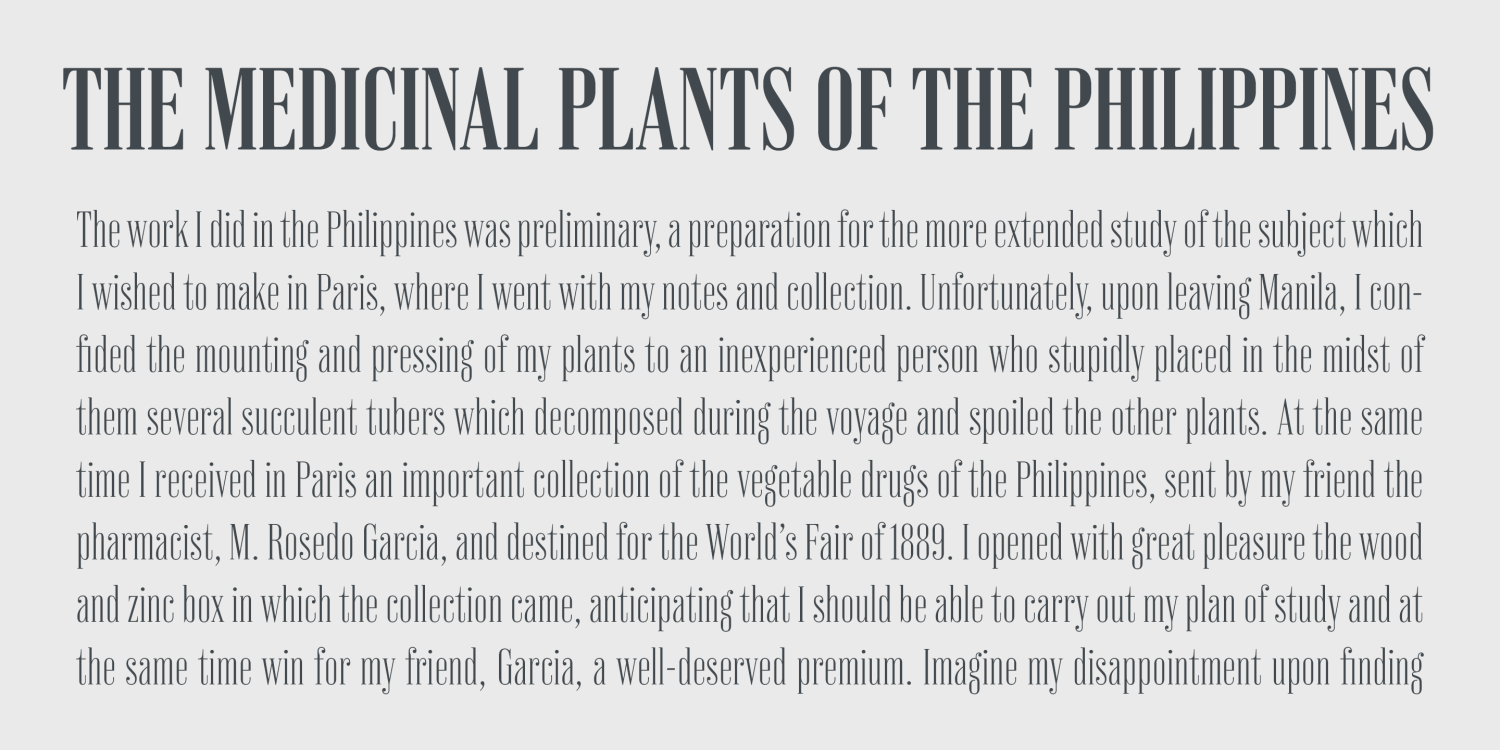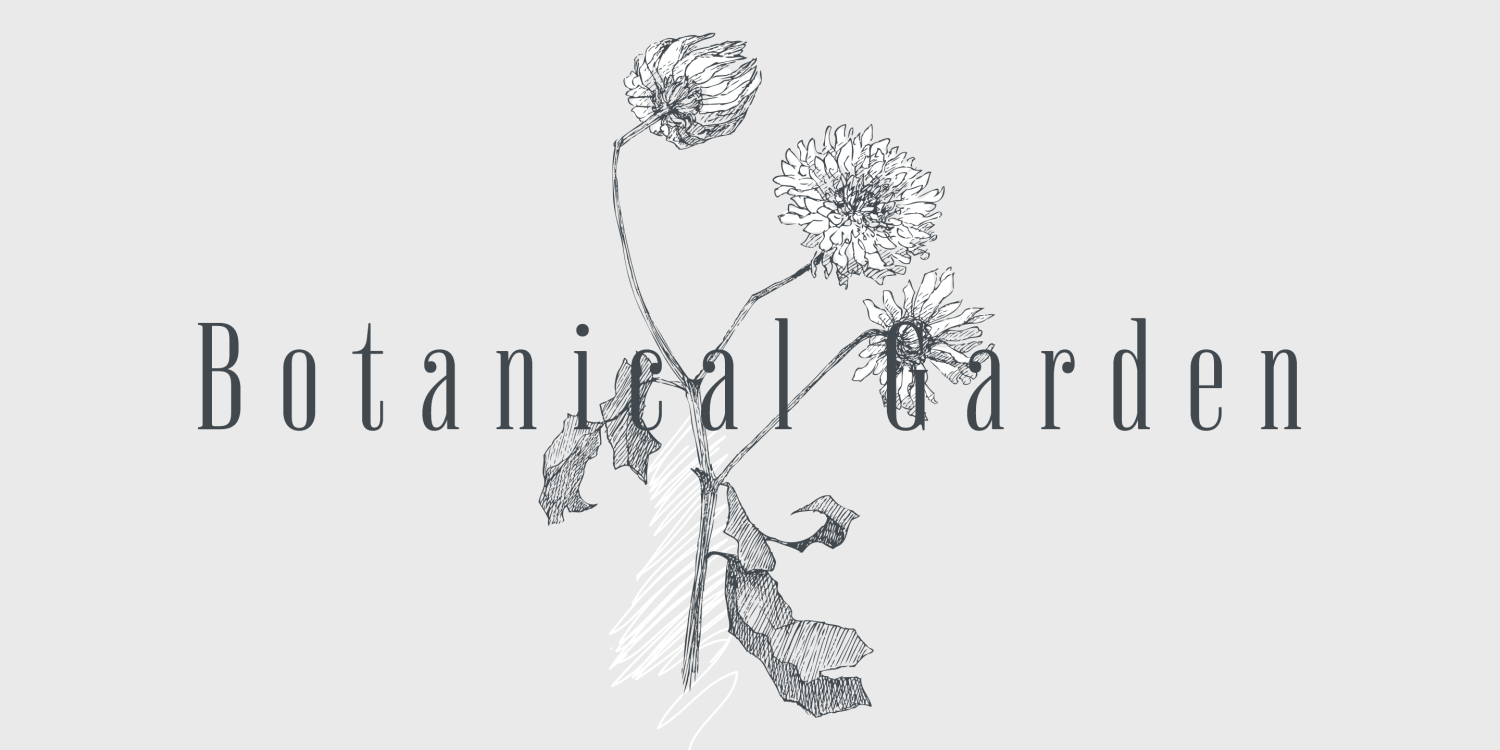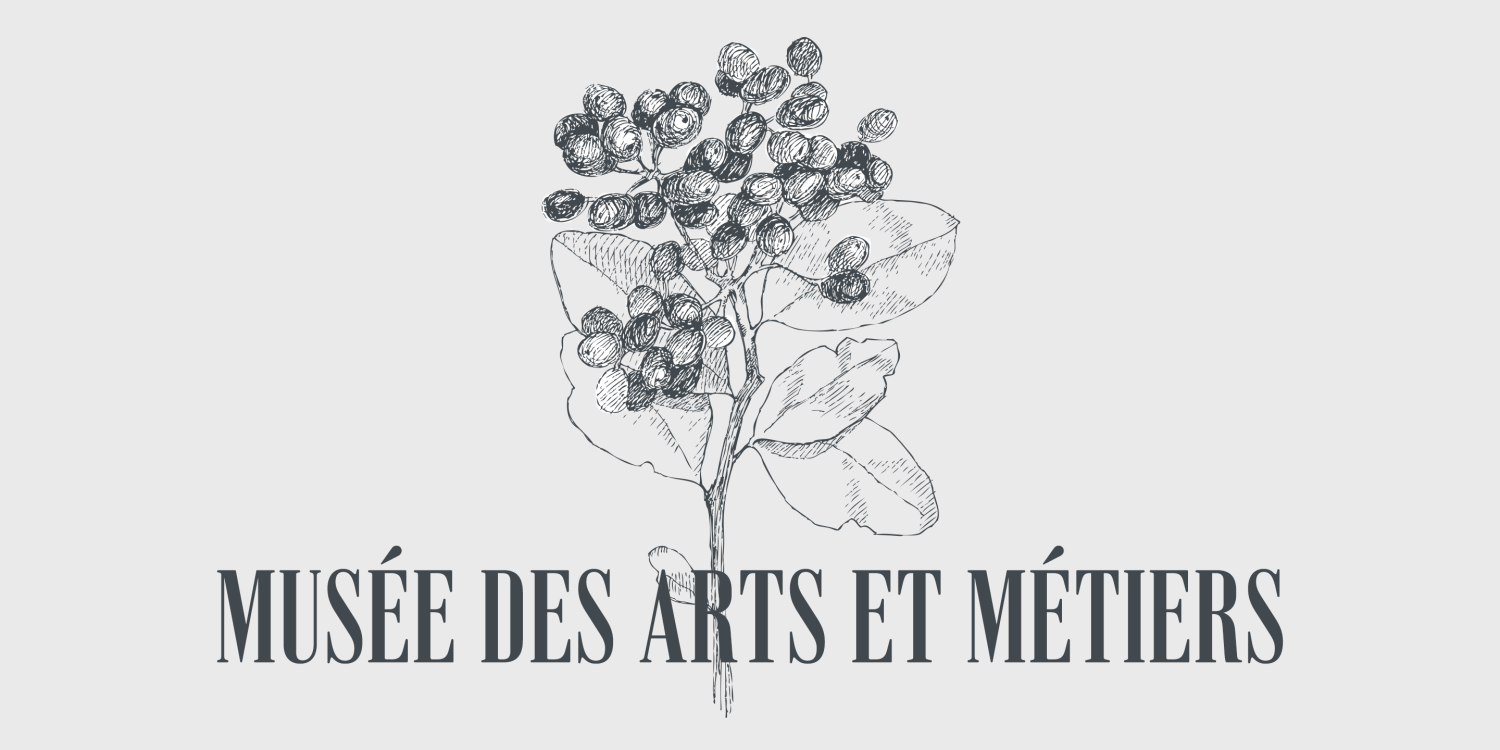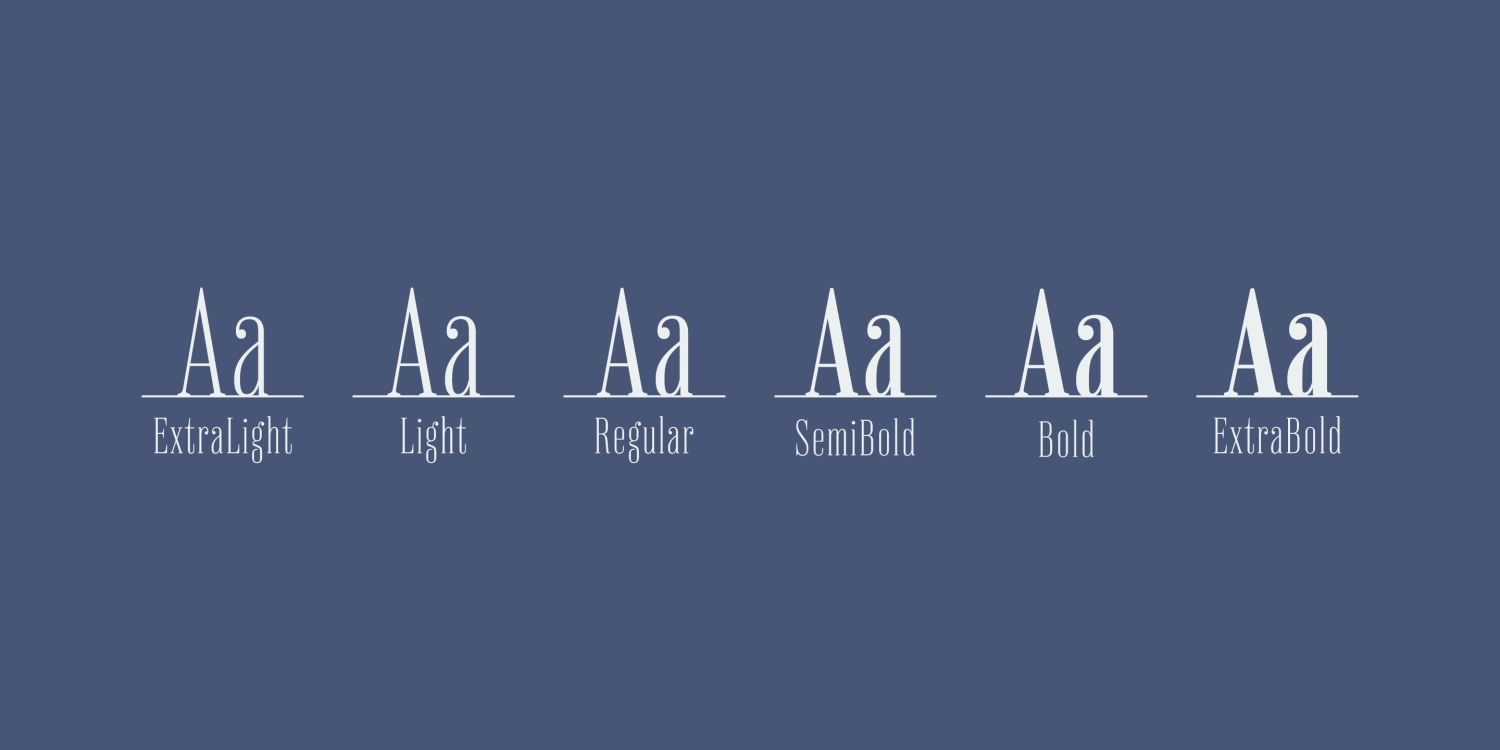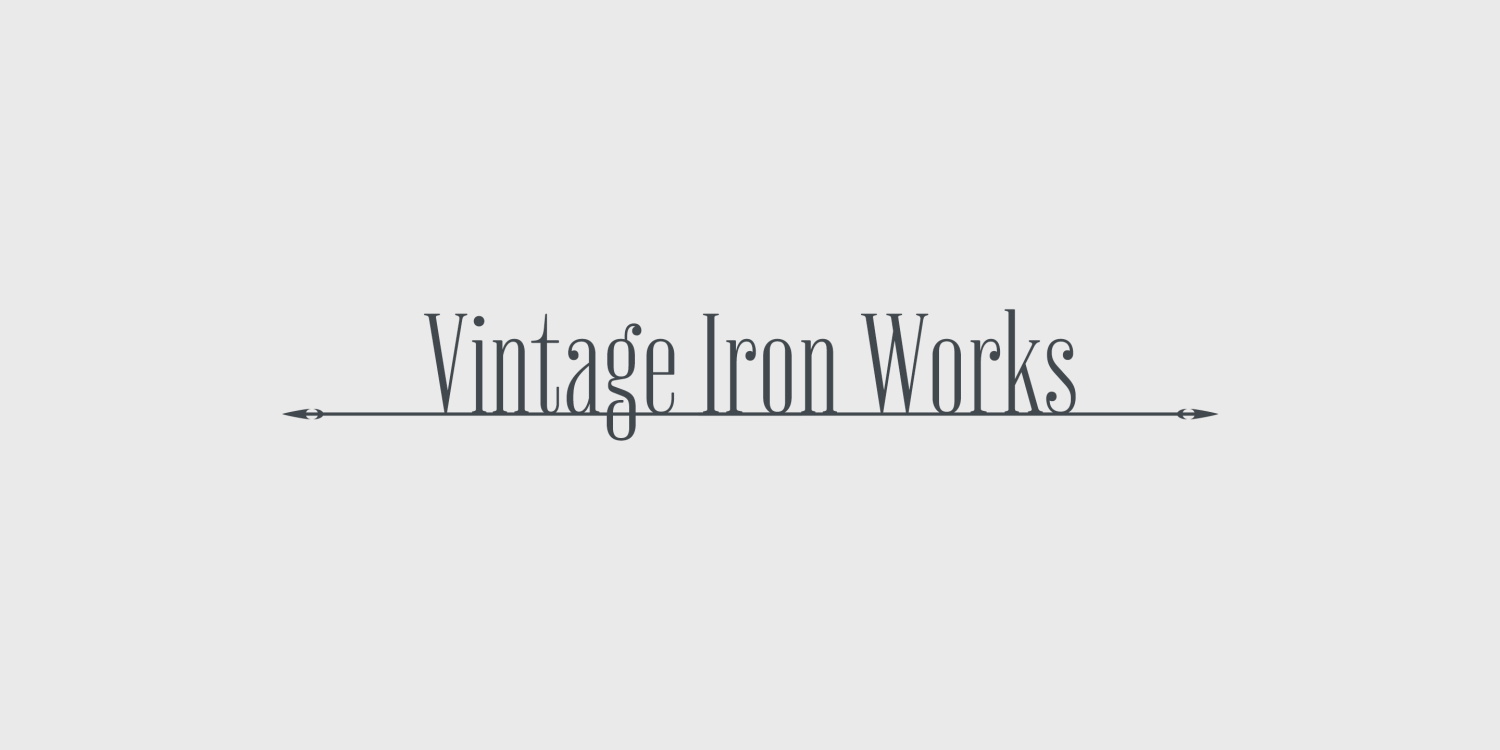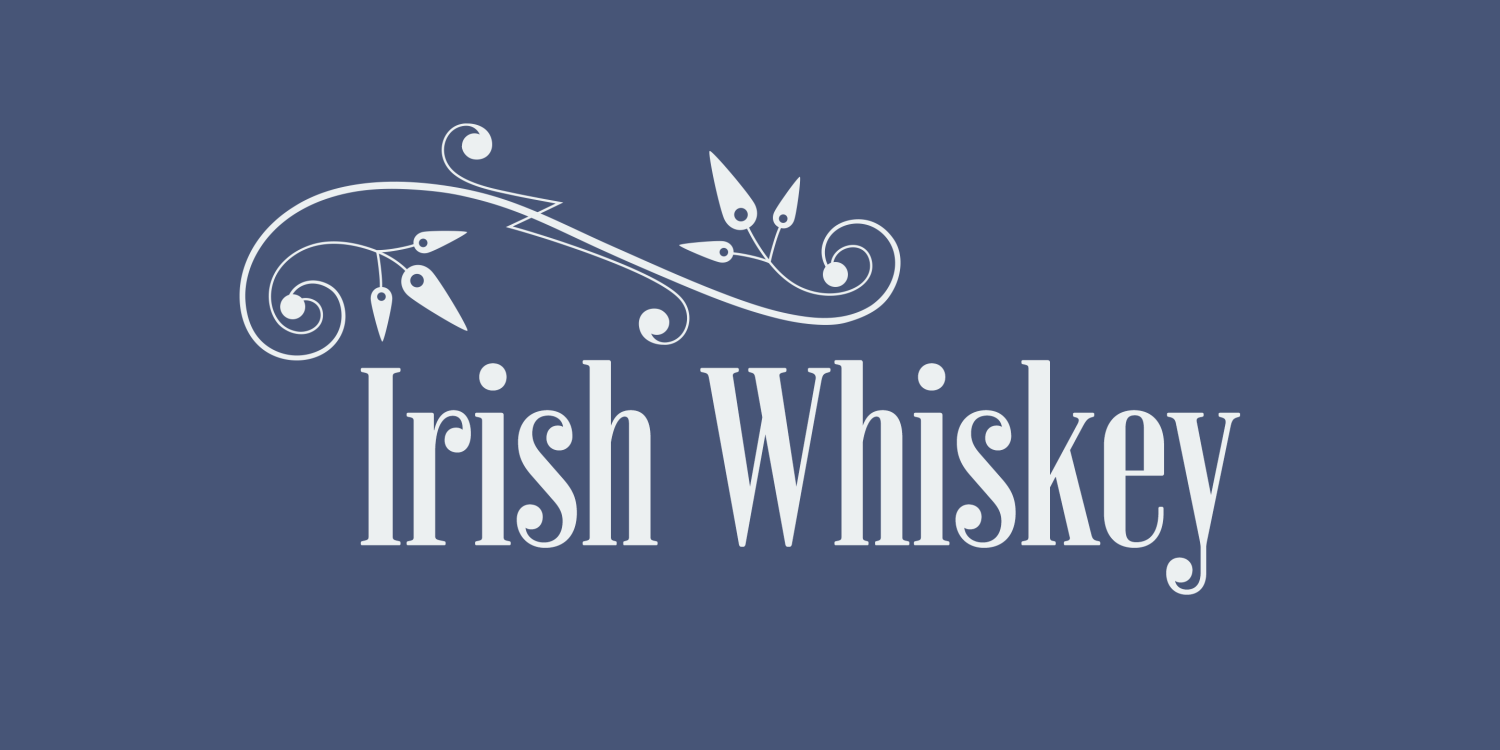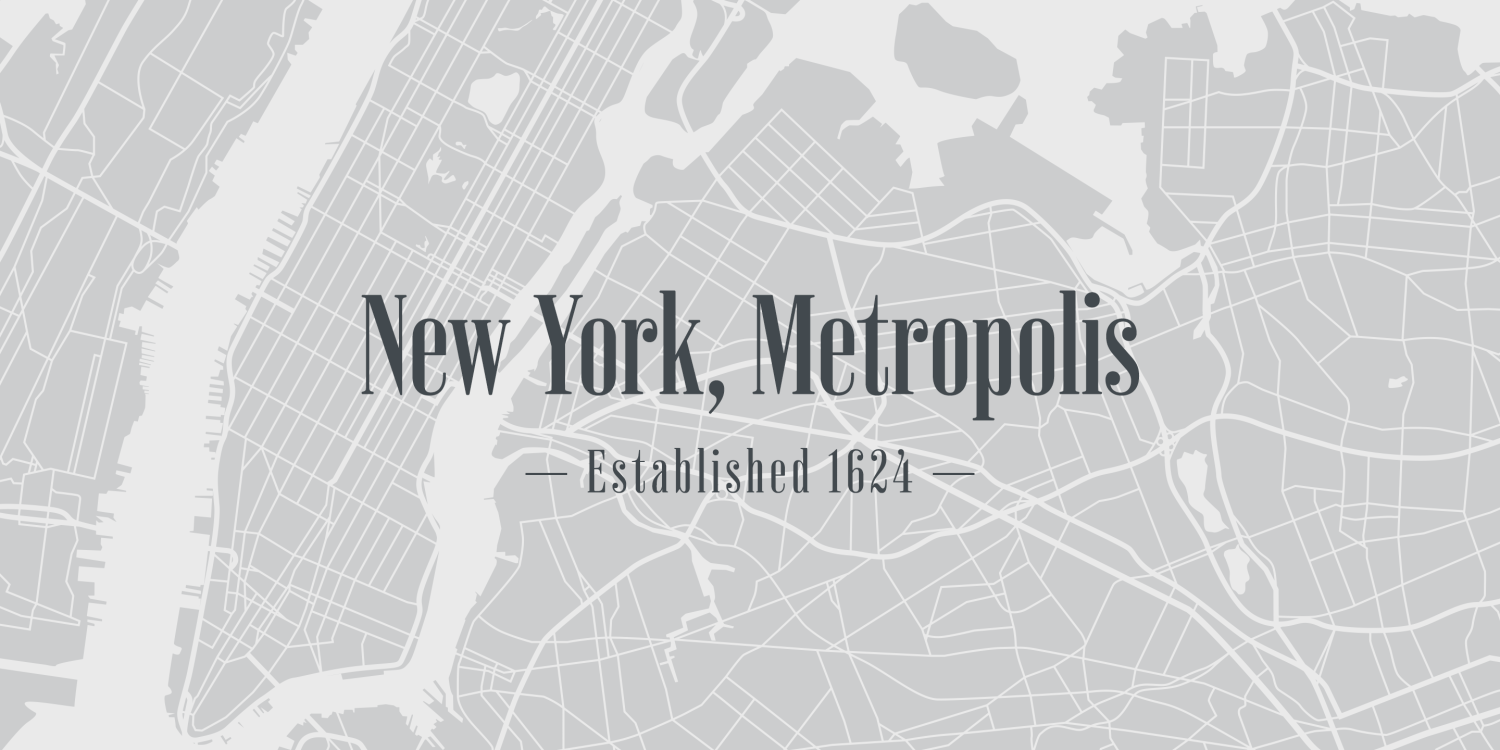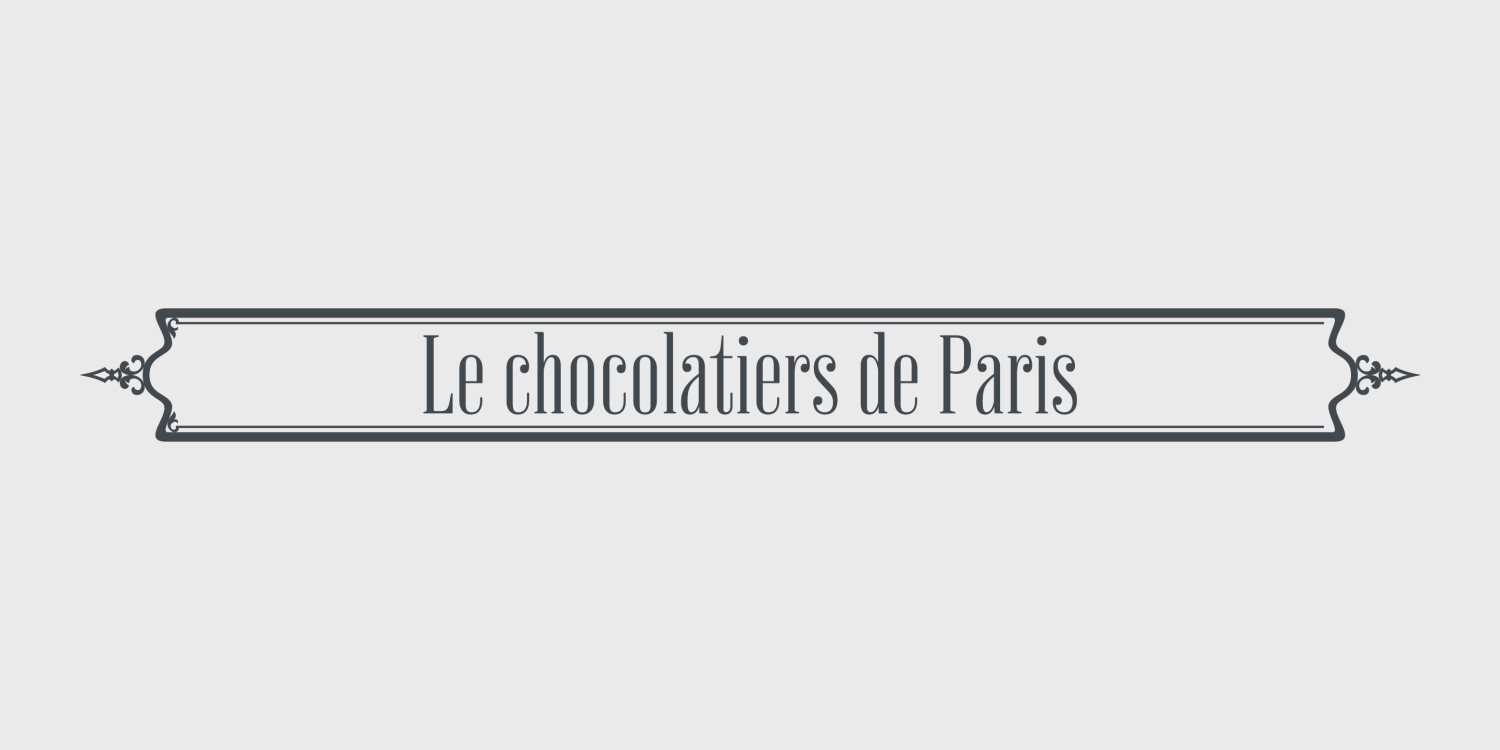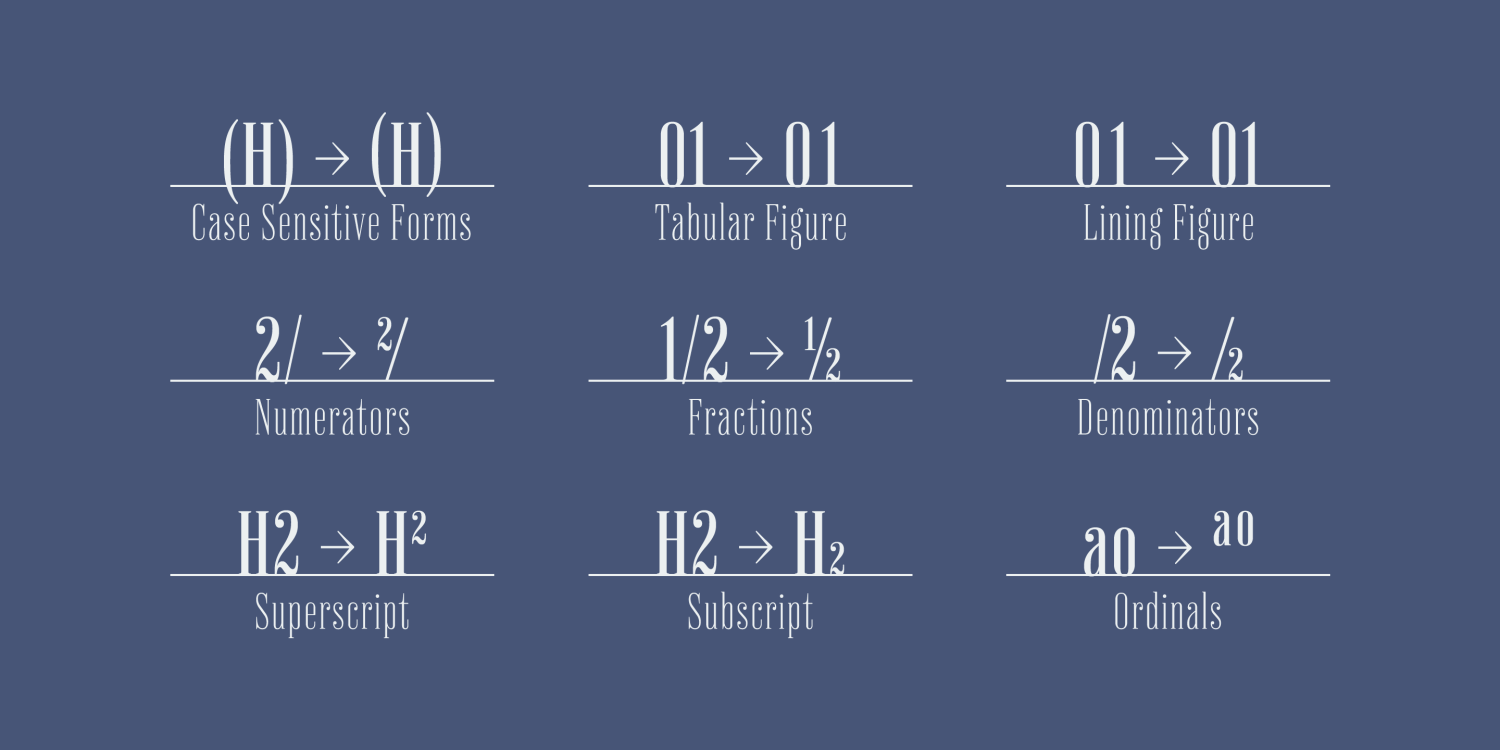
Vincente
Font Family by Dharma Type
Vincente is a contemporary serif typeface with a Didone-inspired elegance and condensed proportions.
Its design draws inspiration from vintage ironwork and antique botanical illustration books, blending refined structure with delicate charm.
The letterforms are simple and orthodox, yet enriched with subtle, distinctive accents—such as the elegant curve of the "y".
While the curves are sophisticated and precise, they carry a sense of handcrafted warmth, lending Vincente a unique human touch.
The family includes six carefully balanced weights and supports almost all Latin-based languages, making it ideal for editorial design, branding, and elegant display typography.